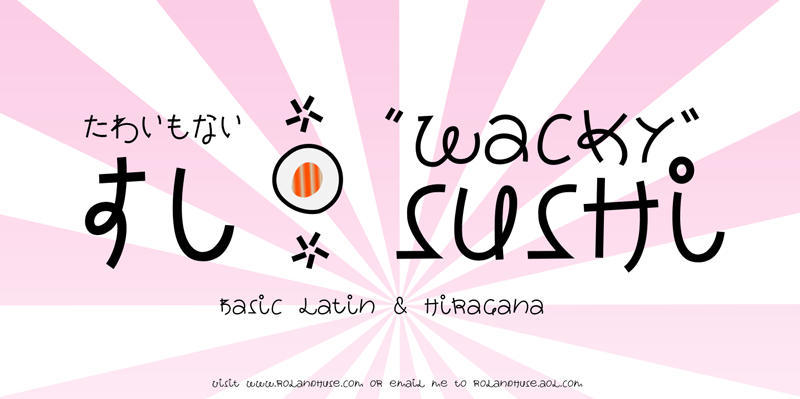
WACKY SUSHI is a Hiragana based font, I was trying to apply the strokes and the way of drawing Japanese Hiragana letters to the basic latin which led to this "wacky" result. The Hiragana characters look "normal" but you only can use it if you have MS IME input installed on your computer for Japanese characters input. (And some basic knowledge of the Japanese language). https://www.coscom.co.jp/learnjapanese801/install_ime.html This font is free for PERSONAL use only. For any commercial use (anything you make money from), you must send a paypal donation to myhandwritings@gmail.com. Please contact me via myhandwritings@gmail.com also about the following: - This family does not contain all the language extensions, but I am willing to create any extensions on request - Any other question or feedback. You MAY NOT sell my fonts or claim them as your own. You MAY NOT edit or rename my fonts. You MAY redistribute my fonts if: More... |